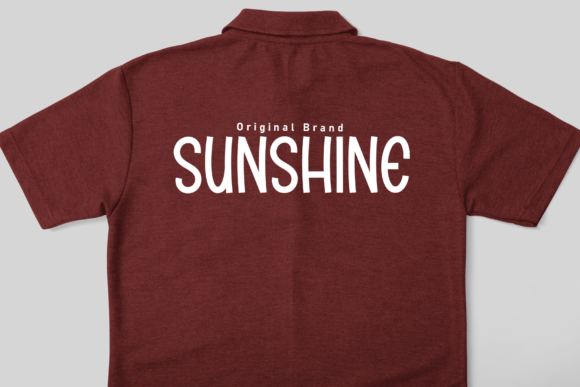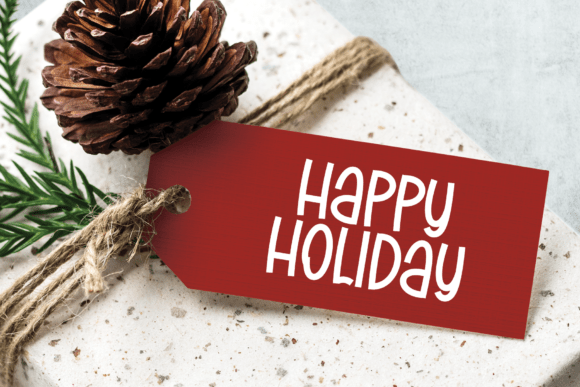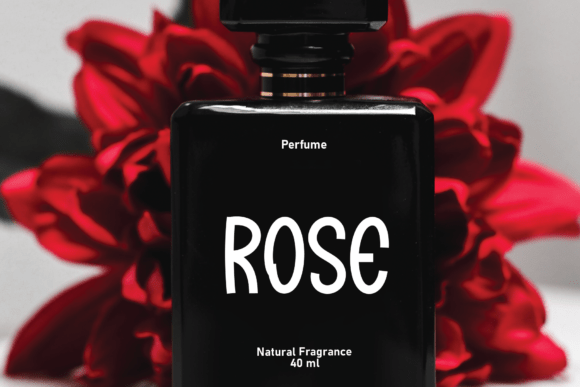
Introduction to Santa Christmas Font
Have you ever found yourself rummaging through your design resources, searching for the perfect font to bring a project to life? That’s exactly what happened to me the other day, when I stumbled upon the enchanting Santa Christmas Font. Its warm and inviting personality instantly captured my attention, and I knew I had to share it with fellow designers.
As designers, we’re always on the lookout for that special something that elevates our creative projects to the next level. Whether it’s a wedding invitation, a sentimental card, or a holiday greeting, the right font can make all the difference. And that’s exactly what the Santa Christmas Font does – it adds a playful sophistication that’s hard to resist.
Key Features of Santa Christmas Font
- High-quality design resource ideal for creative projects, especially during the holiday season.
- Features a transparent background, allowing for easy integration with various design elements and backgrounds.
- Designed with a playful and whimsical touch, making it perfect for festive and holiday-themed designs.
- Perfect for creating eye-catching and festive designs, from holiday cards to gift tags and more.
Honest Review: Santa Christmas Font
As a designer, I’m always on the lookout for unique and high-quality design resources to elevate my creative projects. Recently, I stumbled upon the Santa Christmas Font, and I’m excited to share my thoughts on this festive font.
What works well: ✨ The Santa Christmas Font is a beautiful, hand-drawn font that’s perfect for adding a touch of whimsy to your designs. The font is highly customizable, making it ideal for creative projects where you need to adjust the font size, color, and style. The transparent background option is also a great feature, allowing you to seamlessly integrate the font with any design element.
- High-quality design resource
- Perfect for creative projects, especially holiday-themed designs
- Customizable font size, color, and style
What doesn’t work well: ⚠️ While the Santa Christmas Font is a great addition to any designer’s toolkit, it’s not suitable for formal or professional designs. The font’s playful, handwritten style may not be suitable for corporate or business projects.
Overall, I’m impressed with the Santa Christmas Font’s quality and versatility. It’s a great resource for designers looking to add a festive touch to their creative projects. If you’re looking for a high-quality, customizable font, the Santa Christmas Font is definitely worth checking out.
Tips for Getting the Most Out of the Santa Christmas Font
To get the most out of the Santa Christmas Font, use it in combination with other design elements, such as images and shapes. Experiment with different font sizes and colors to create a unique and creative project. Also, consider using the font in a transparent background to make it easier to layer over other design elements.
Common Use Cases for the Santa Christmas Font
Yes, the Santa Christmas Font has a transparent background, making it perfect for use on images or backgrounds with complex designs. This allows the font to blend seamlessly into your design, creating a professional and polished look.
Q: Is the Santa Christmas Font suitable for use in high-resolution designs?
Yes, the Santa Christmas Font is designed to be high-resolution, making it perfect for use in large-format designs, such as billboards or posters. The font’s high-quality design ensures that it will look great at any size, from small to large.